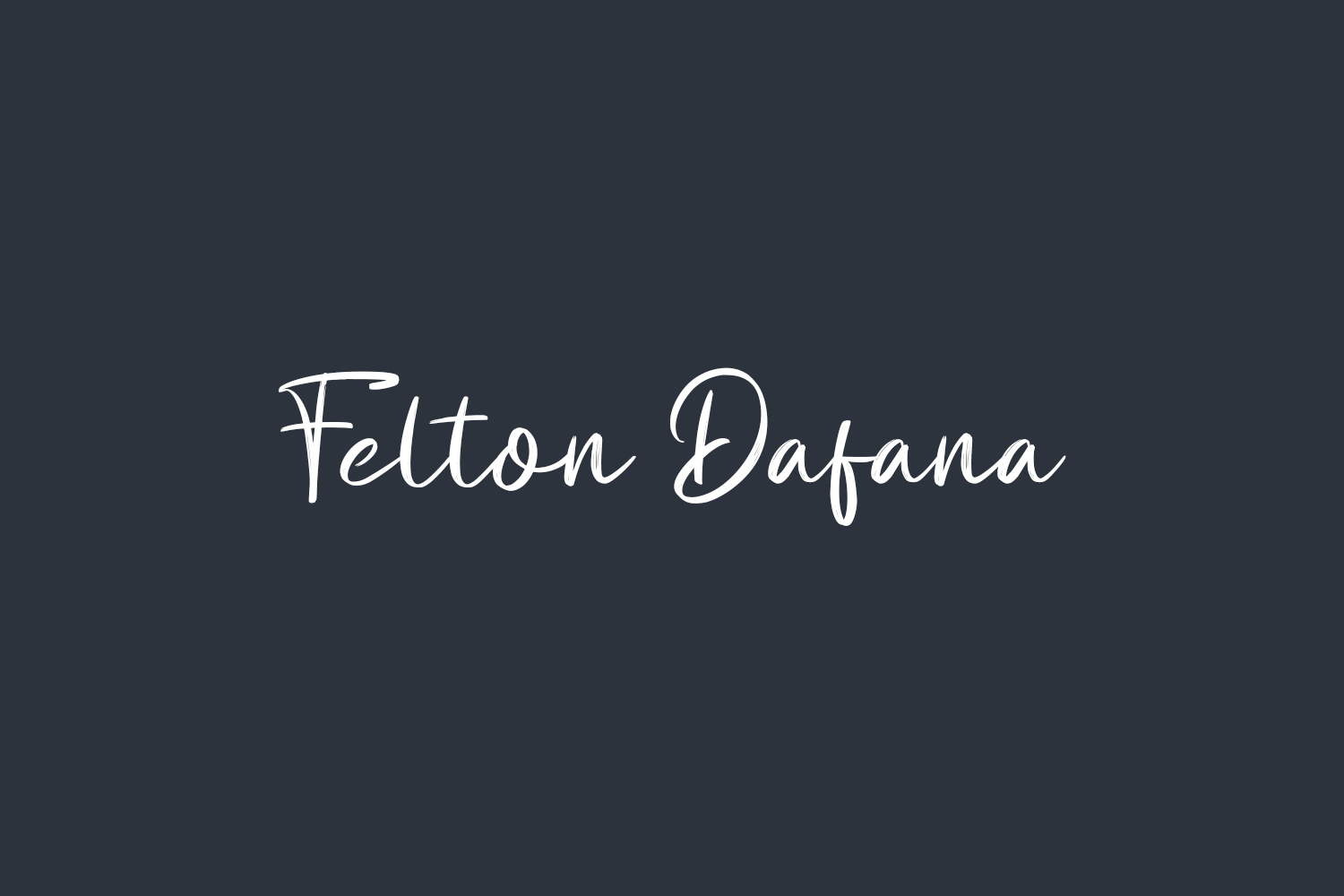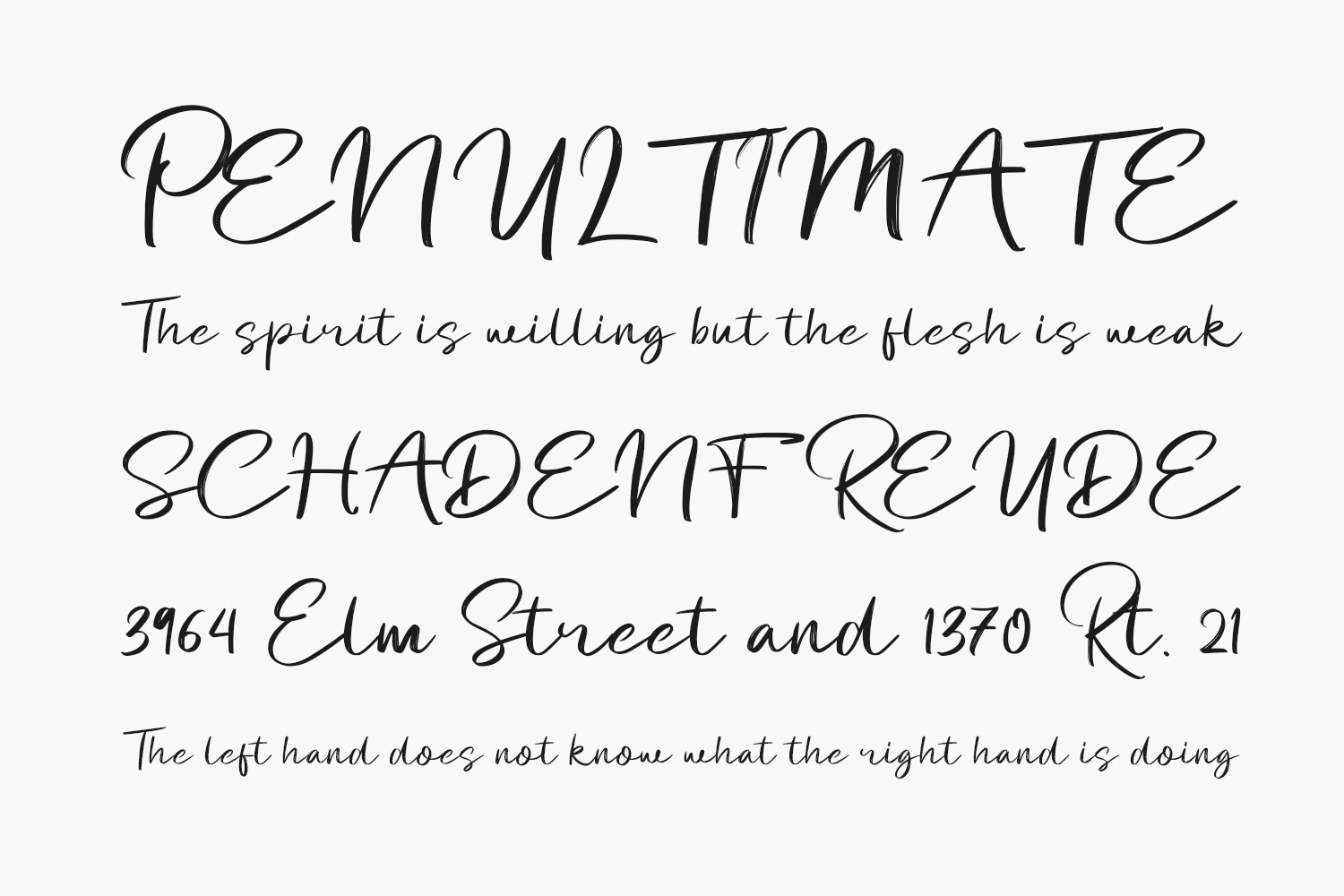
Felton Dafana Free Font is an interesting brush-style handwritten font. Extremely flowing and well-rounded, this font is a great choice for logotypes, shirt designs, typography posters, quotes, and anything else that needs an elegant, calligraphic look. Felton Dafana Free Font was designed by ToniStudio and is free for personal use only. Please purchase the full version for commercial use.